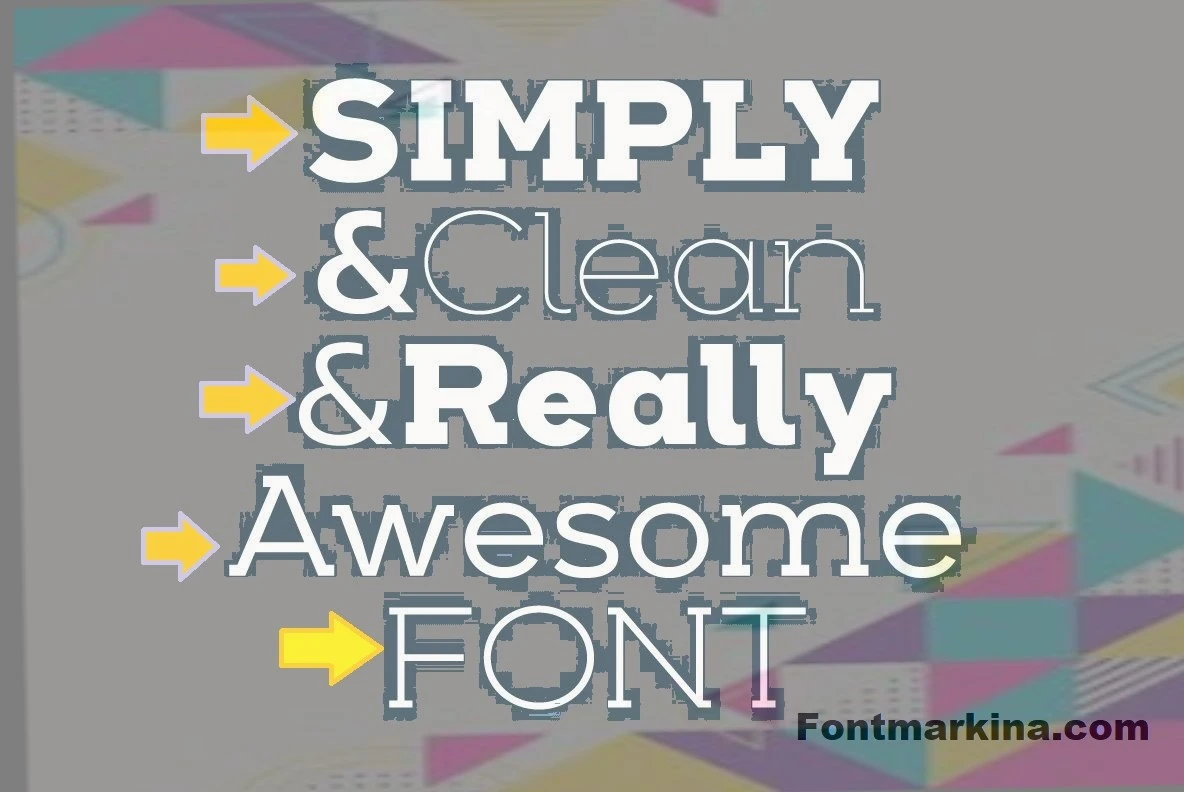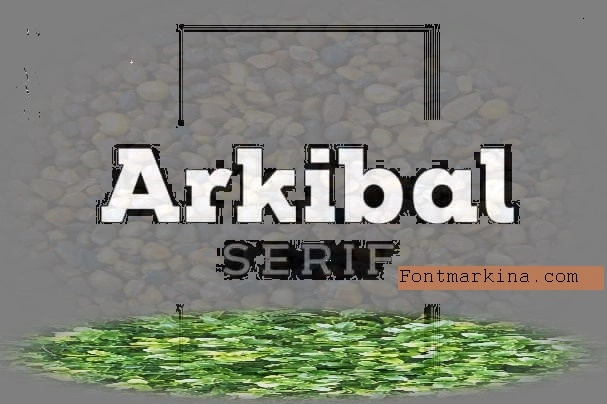
Introducing a very high-class and massive popular font that goes by the name Arkibal Font. Jan-Christian Bruun is a very intelligent and brilliant mind designer who took the charge of their creations.
There are a lot of similar textures to this family available on Google fonts. One more classic and advanced feature of this family is that it has 12 unique and outstanding styles. Its similar beau font looks like this texture with the same features.
Some styles are Bold, Italic, heavy, regular, and light making them worth appreciating. It is mostly used for old documents and store signs that had been made at his old gold list factory in the year1838. Its generator tool is suitable for colorful graphic designs.
Who can use Arkibal Font
This texture is used by visual artists for their projects. For titles and similar sections where the layout is important, editors use the condensed font. This texture is suitable for different types of old documents and signs. All expert designers search for such types of textures and get advanced results.
For better results use ascender font by making a pairing with Arkibal Font. Also, used this texture for thumbnails of different interesting videos. If you want to use this family for covers of books and posters designs then it is well suitable. It is a versatile texture and also classic for Adobe and other programs.
| Name | Arkibal Font |
| Designer | Jan-Christian Bruun |
| Type | Serif |
What type of font is Arkibal Font?
This awesome texture falls in the category of the serif family of fonts. It adds 12 unique styles.
Who is the manufacturer of Arkibal Font?
Jan-Christian Bruun is an intelligent designer who took the charge of the creation of this texture.